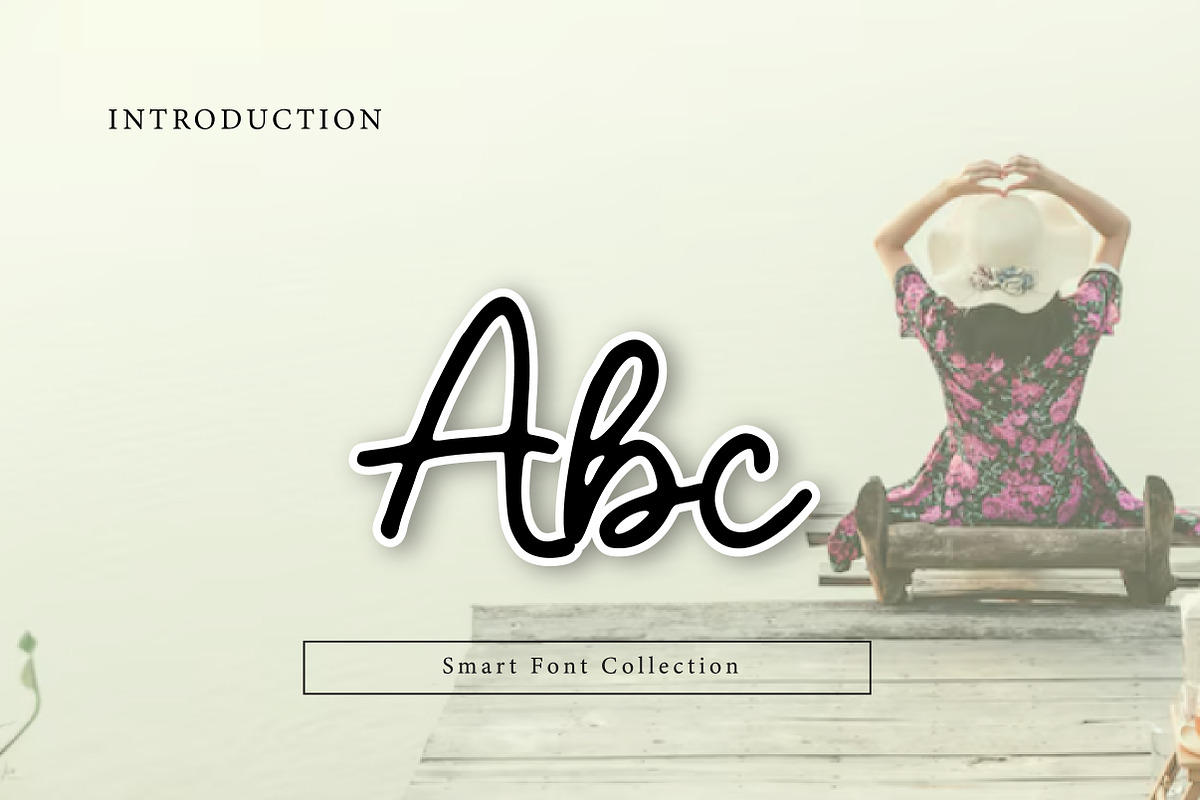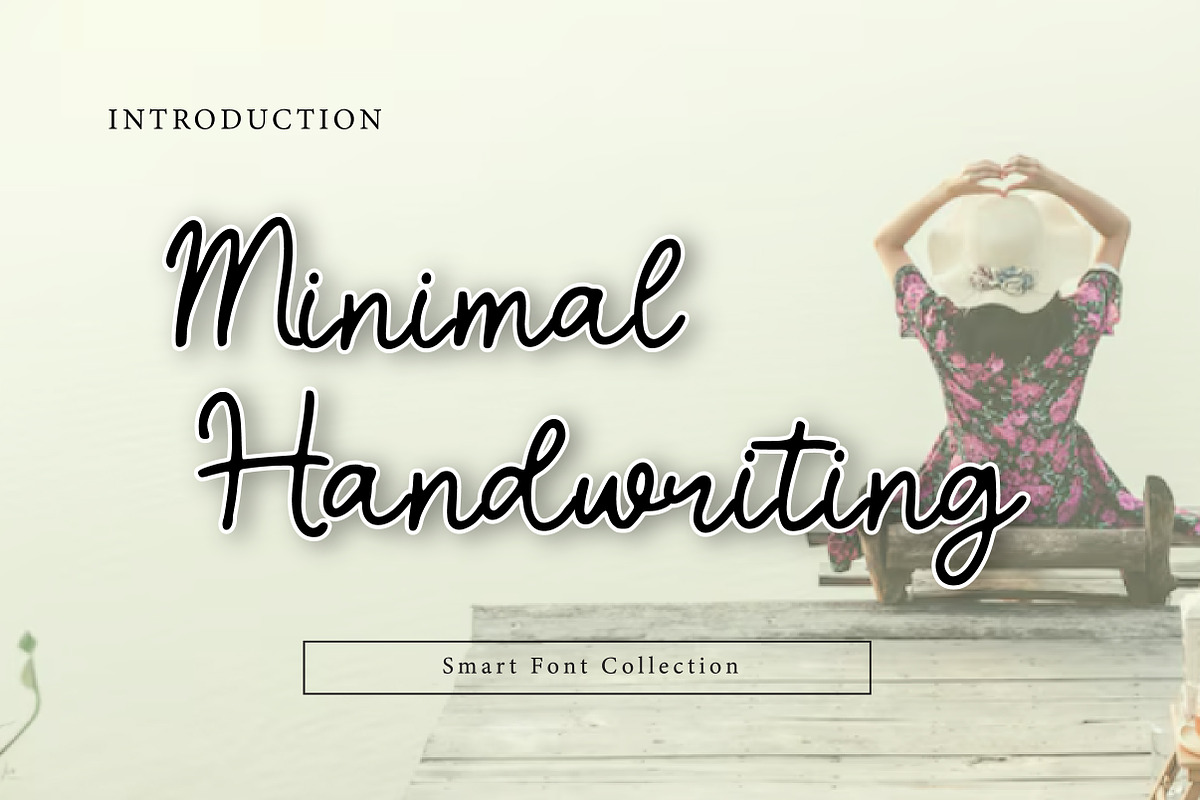
Minimal Handwriting
Minimal Handwriting is a clean and elegant handwritten script font designed with simple strokes and a natural minimal style. Featuring smooth curves, thin lines, and a modern signature feel, this font is perfect for logos, branding, quotes, invitations, social media posts, packaging, beauty labels, and minimalist typography projects. Minimal Handwriting adds a stylish and personal touch while keeping a clean and readable look, making it ideal for modern design, boutique branding, and contemporary layouts.